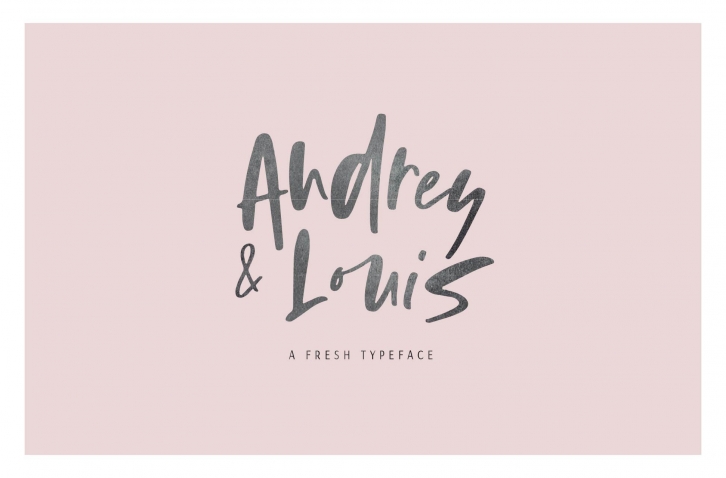
"Audrey and Louis" is a handwritten signature typeface coming in two different versions. Its fresh handwritten look makes it the perfect fit for signature logos, printed quotes, invitation cards, social media headers, product packaging and a lot more!